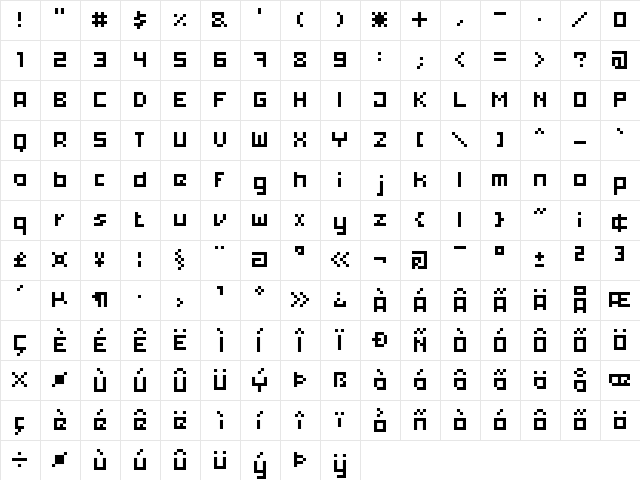
xpdr02 Regular
Design Context for xpdr02 Typeface
xpdr02 is a composed and adaptable typeface that performs quietly and consistently across a wide range of design contexts.